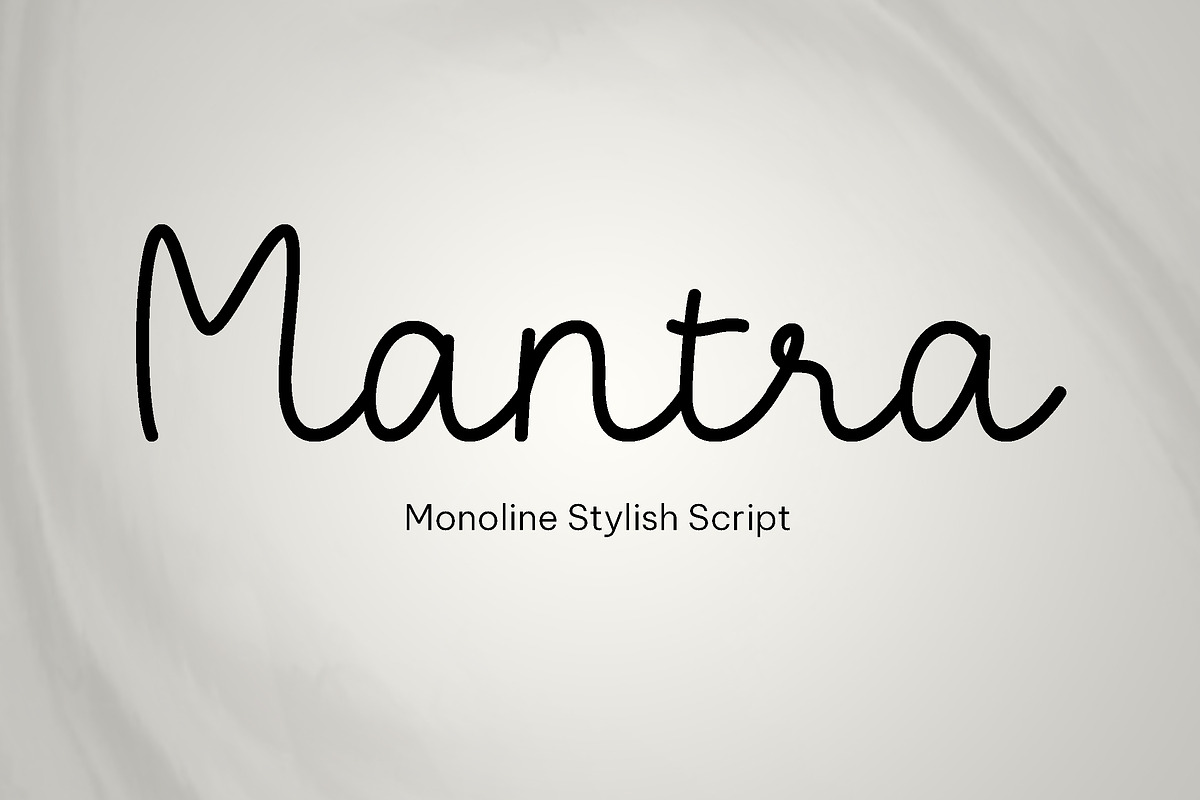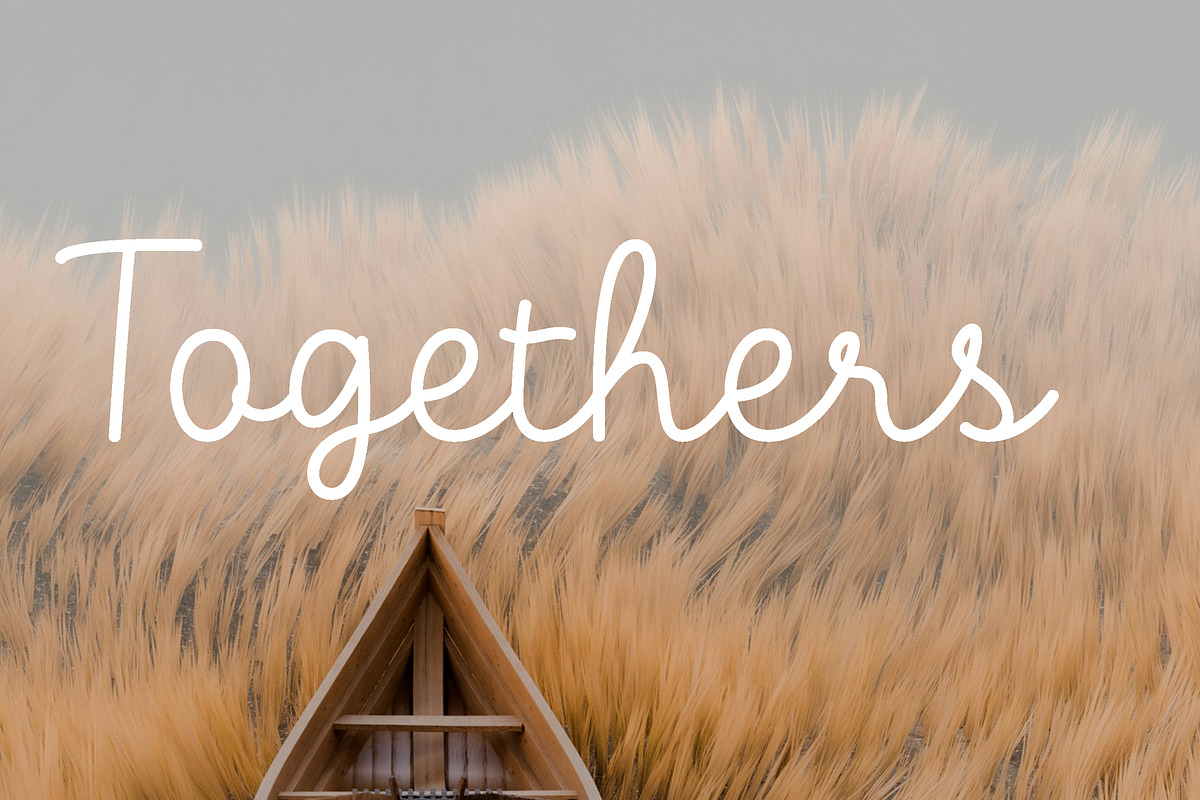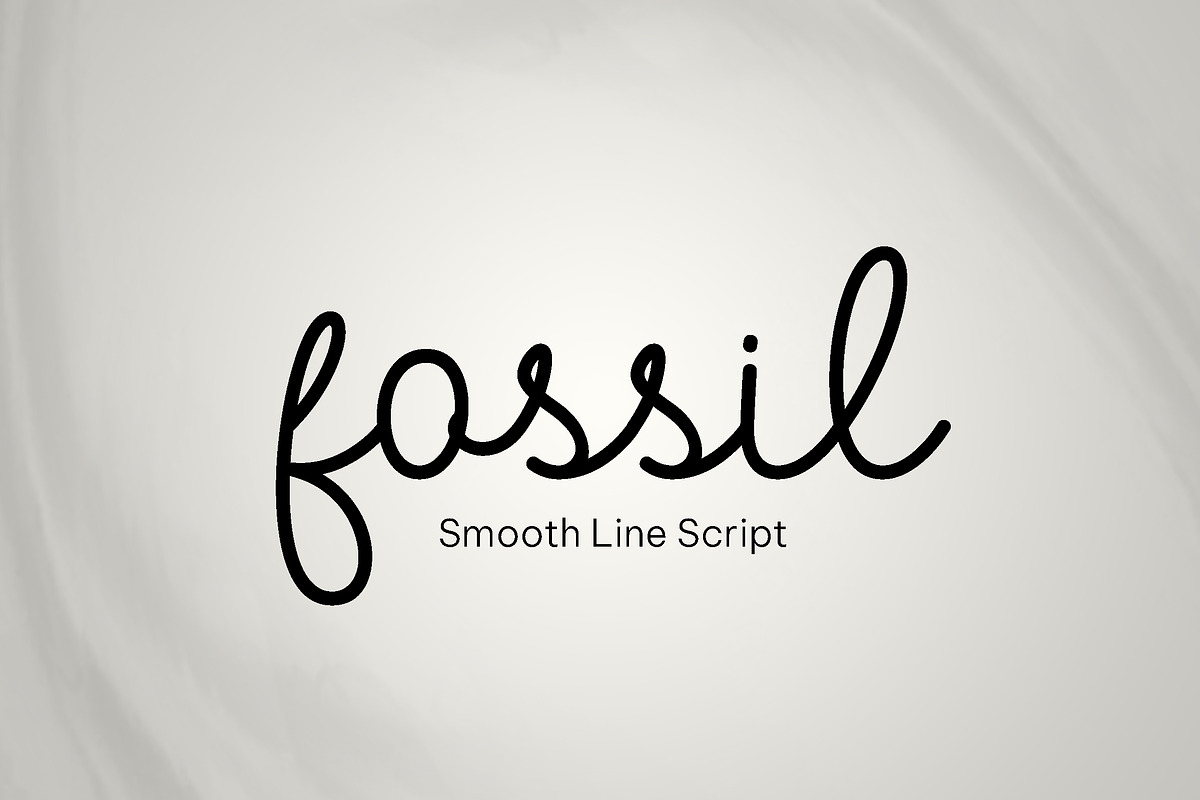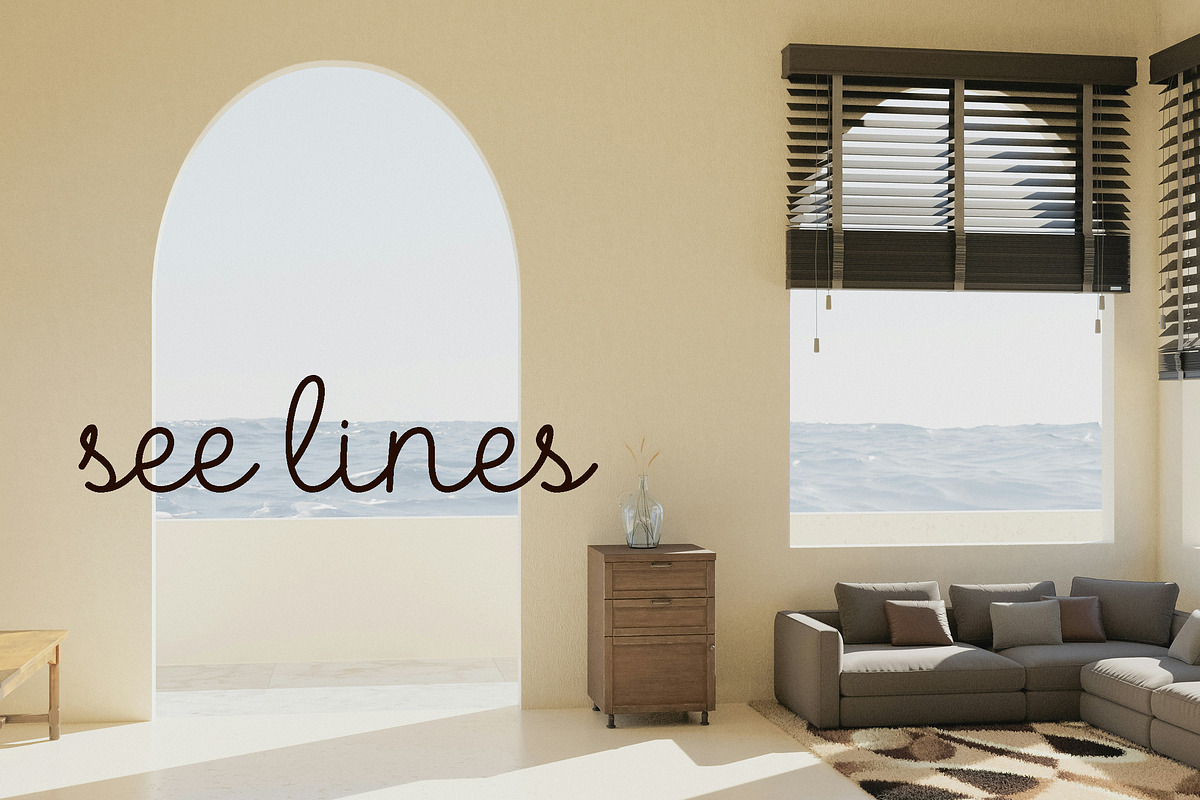
Mantra - lines stylish script font
Introducing Mantra, a classy minimalistic script font full of character and a few twists. It has the clean minimalism of a monoline font and the originality of handwriting. This font is PUA encoded which means you can access all of the glyphs and alternates with ease. please type the preview to see if I have what you need!